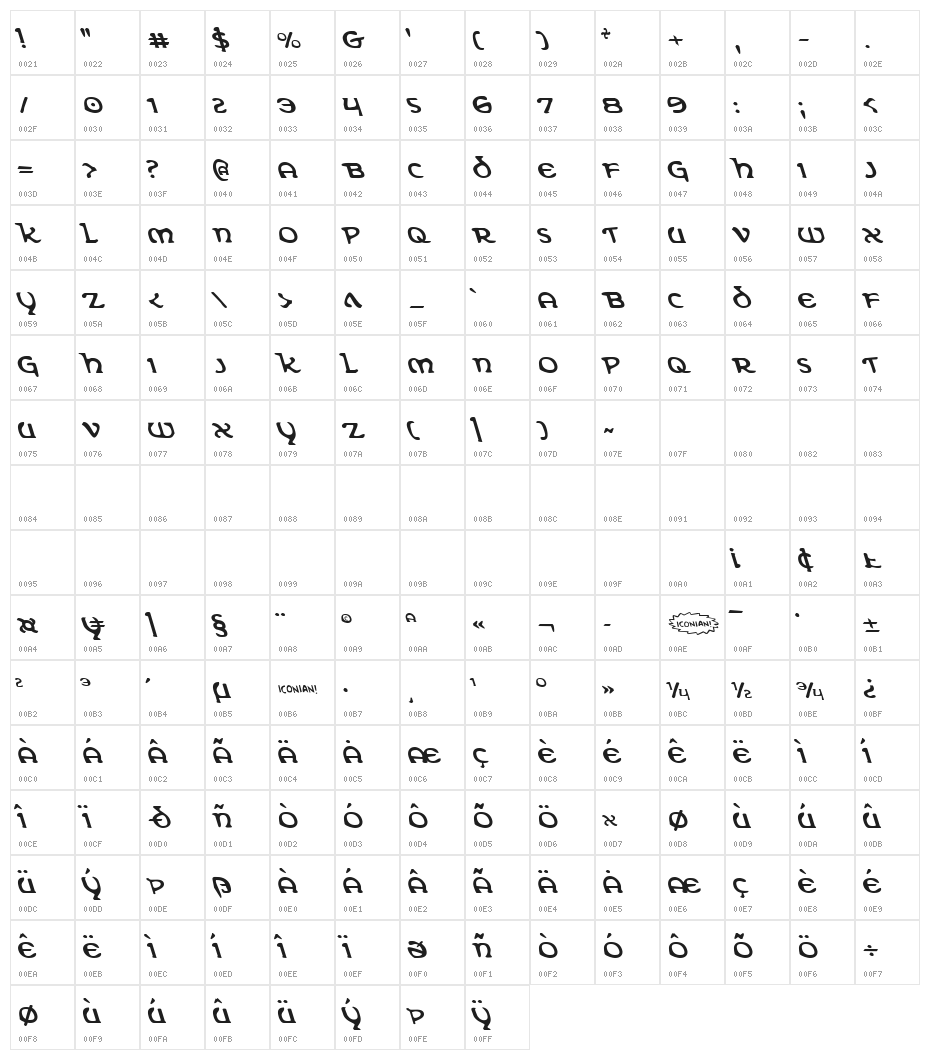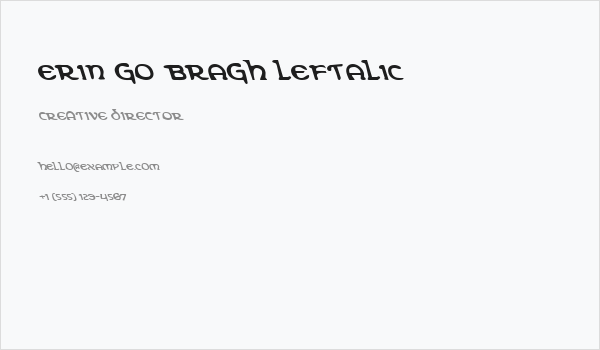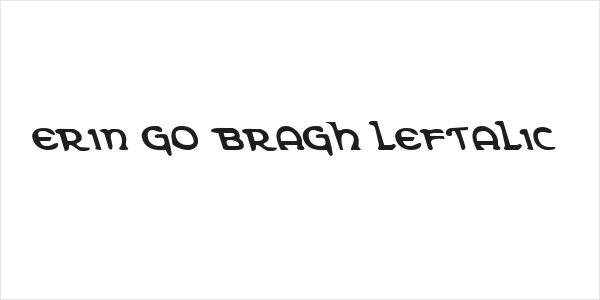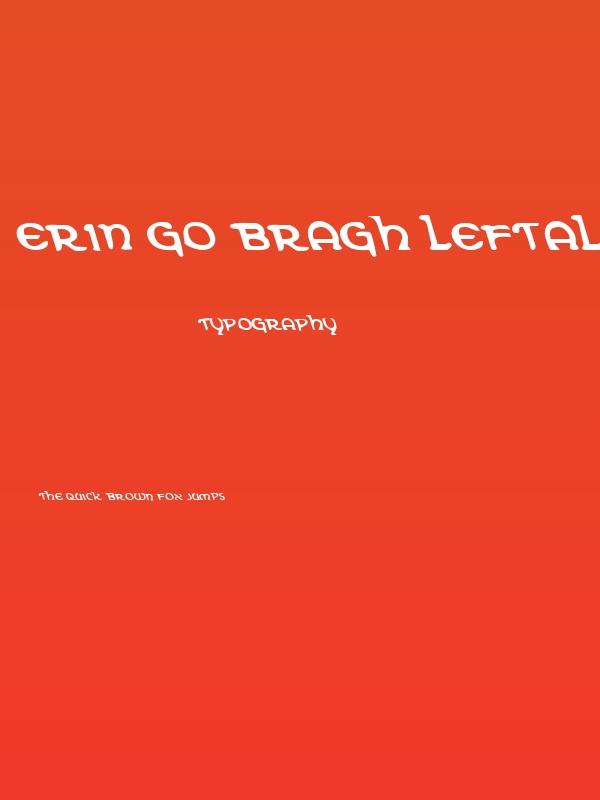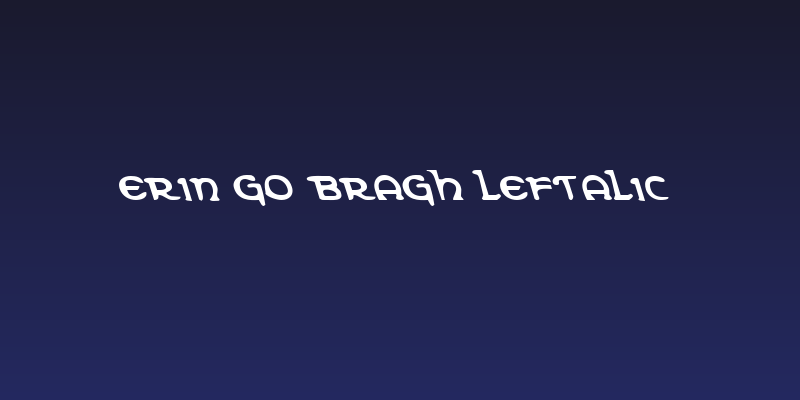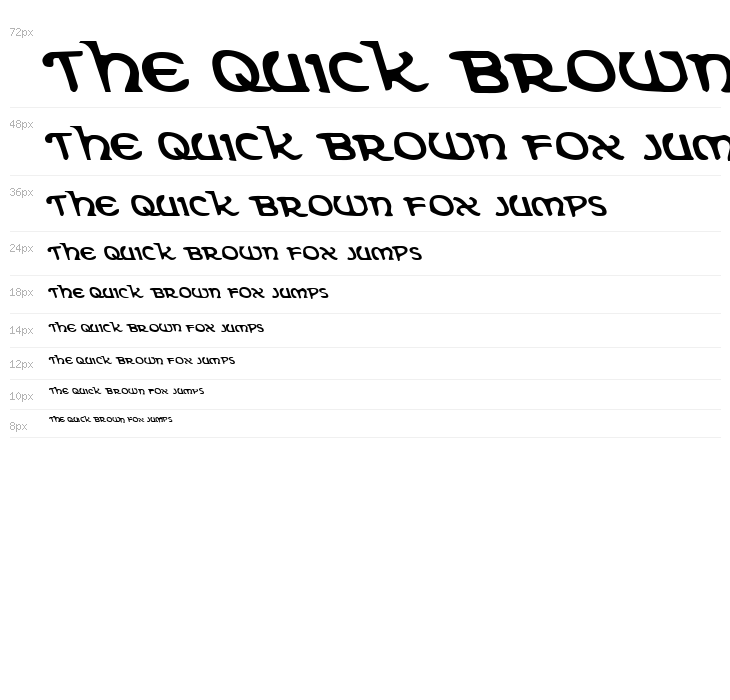
Erin Go Bragh Leftalic Font
Erin Go Bragh Leftalic Description
This font features a unique and playful design with a distinct left-leaning italic style. The characters have a whimsical and slightly distorted appearance, giving them a lively and dynamic feel. The strokes are bold and consistent, with a medium contrast that adds to the font's readability. The overall style is decorative, making it suitable for creative and informal projects. The character spacing is normal, ensuring clarity and legibility even with its unconventional design.
| Proposed Projects | Ideal for greeting cards, playful branding, children's books, and creative posters. |